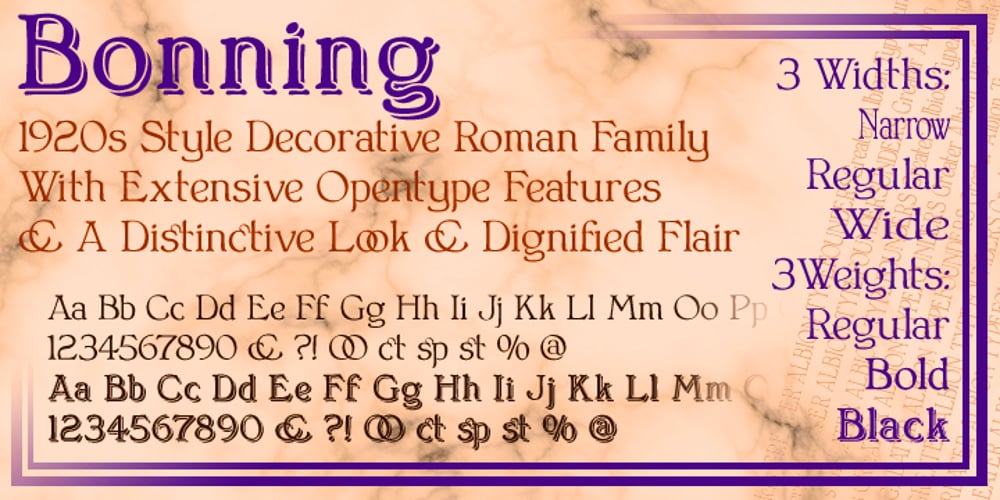
Bonning Font Family was designed by Paul James Lloyd and published by Greater Albion Typefounders. Bonning contains 9 styles and family package options. Bonning is a Roman face full of the spirit of the 1920s. It was inspired by a (real)estate agent’s For Sale board seen in an old sepia photograph from that era and combines visual flair and period with good clear legibility. A range of Opentype features including alternate forms, old style numbers and fractions, as well as discretionary and standard ligatures are included. Three weights are offered, including a shadowed black form are offered, all in a choice of three widths. It’s the ideal face for signage with a period feel, as well as posters, headings and feature paragraphs.